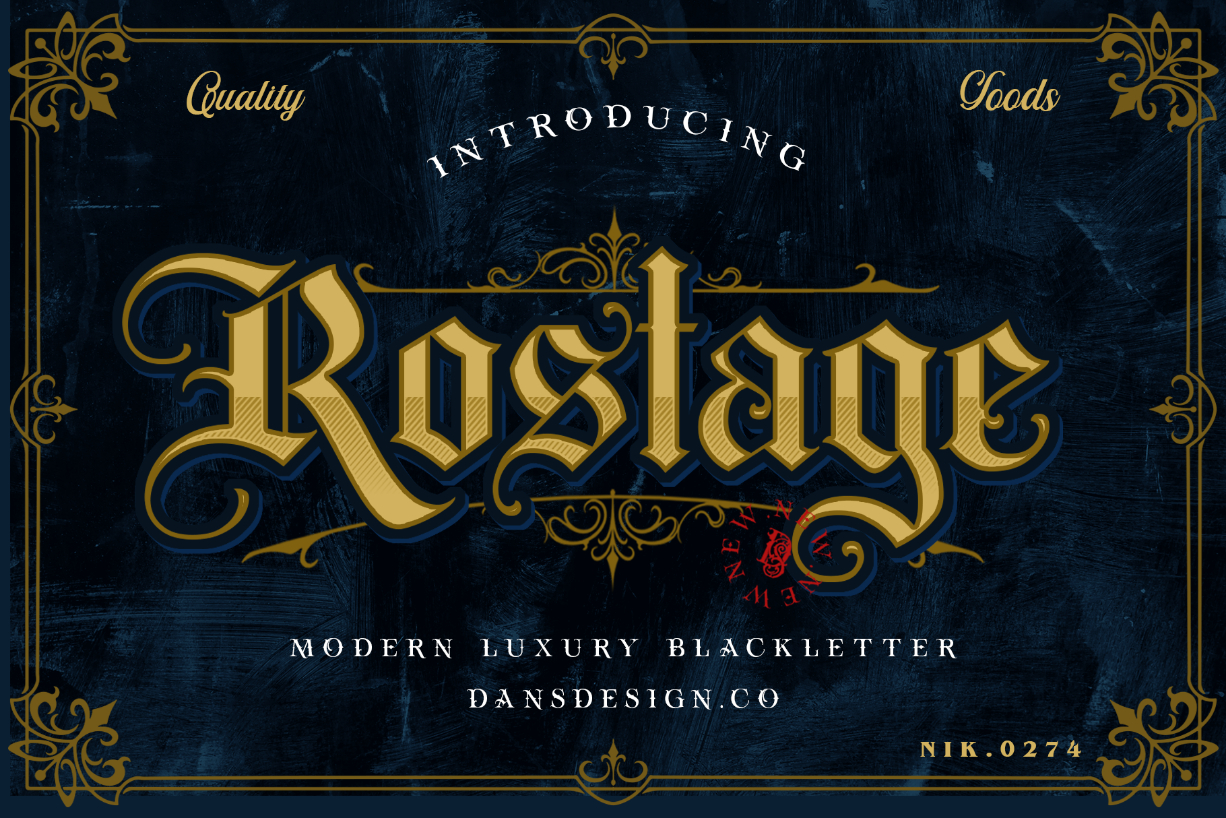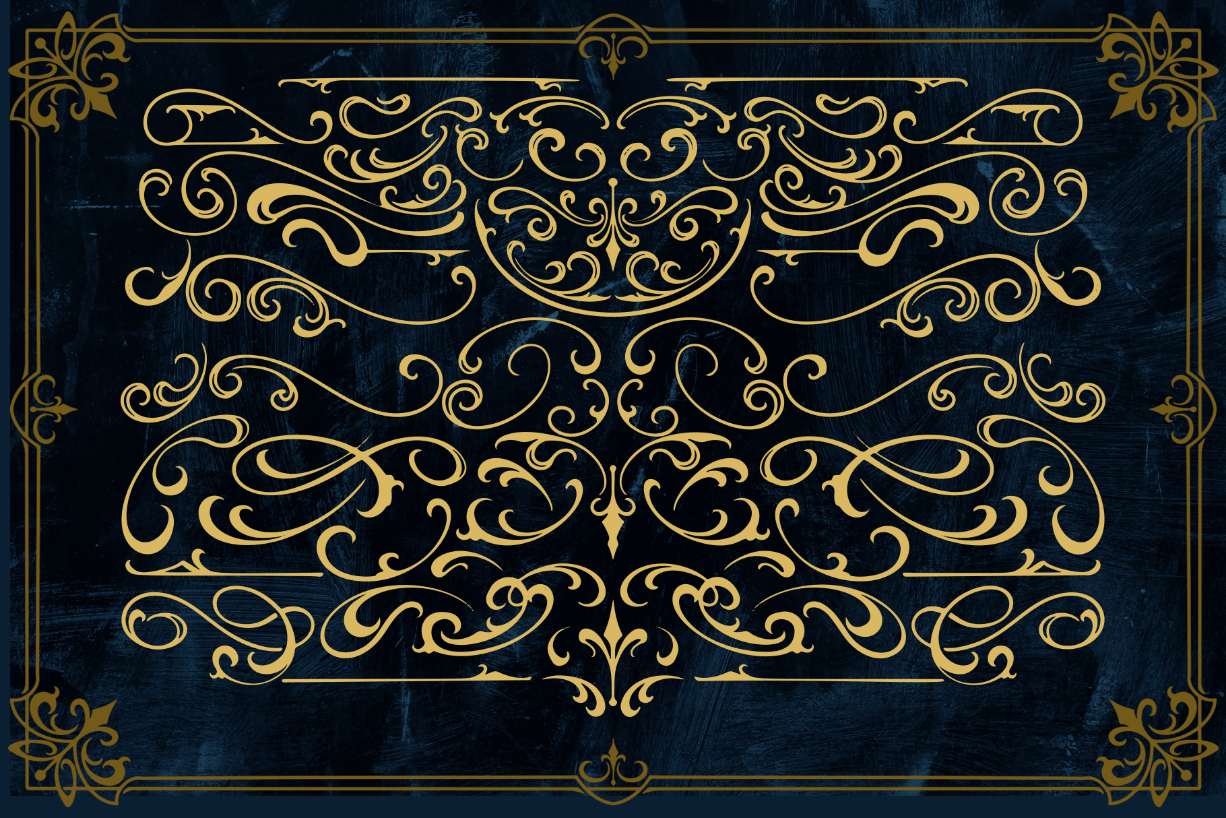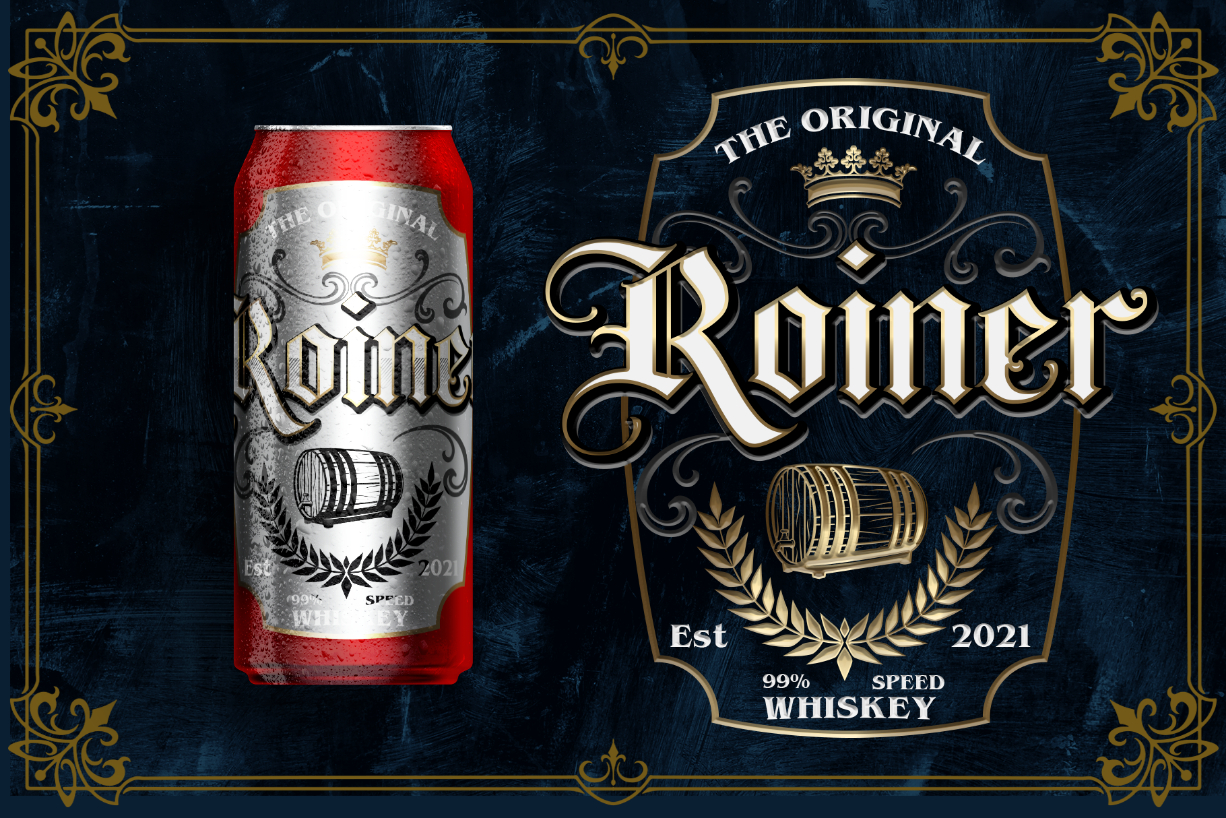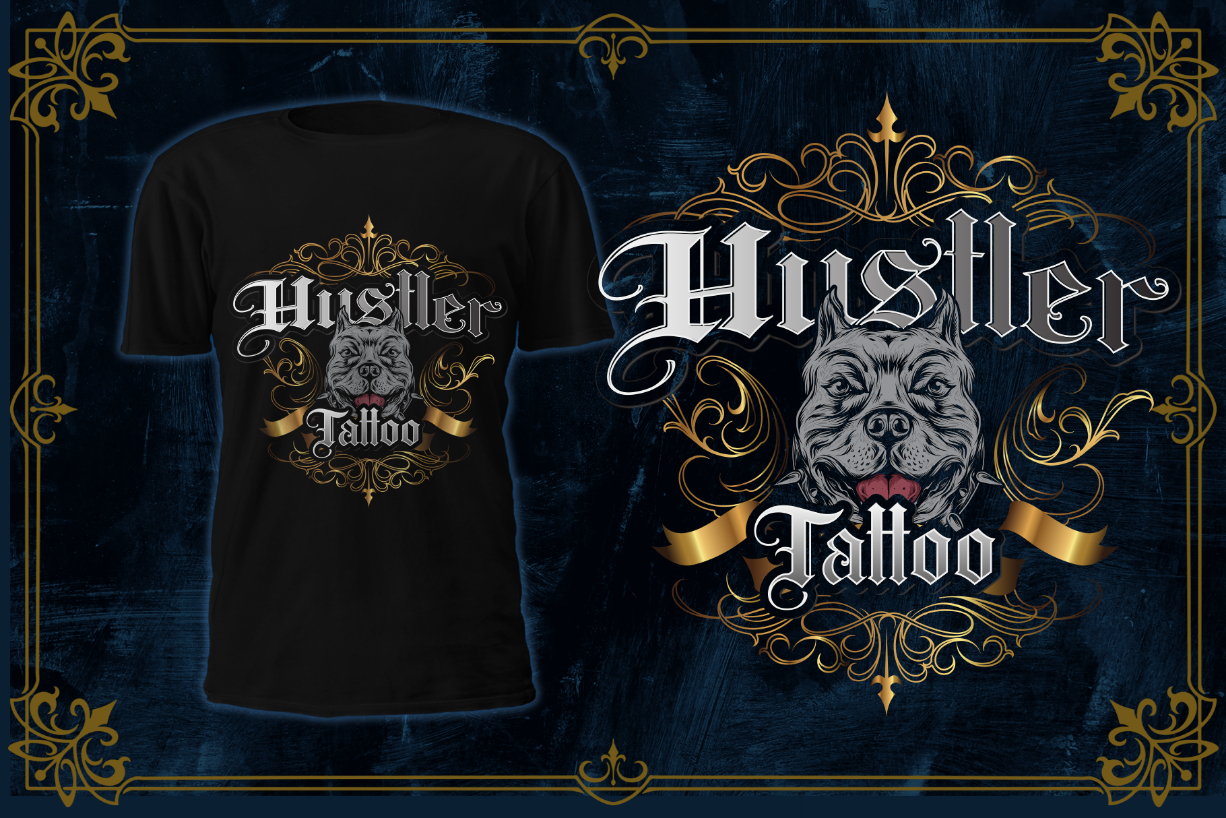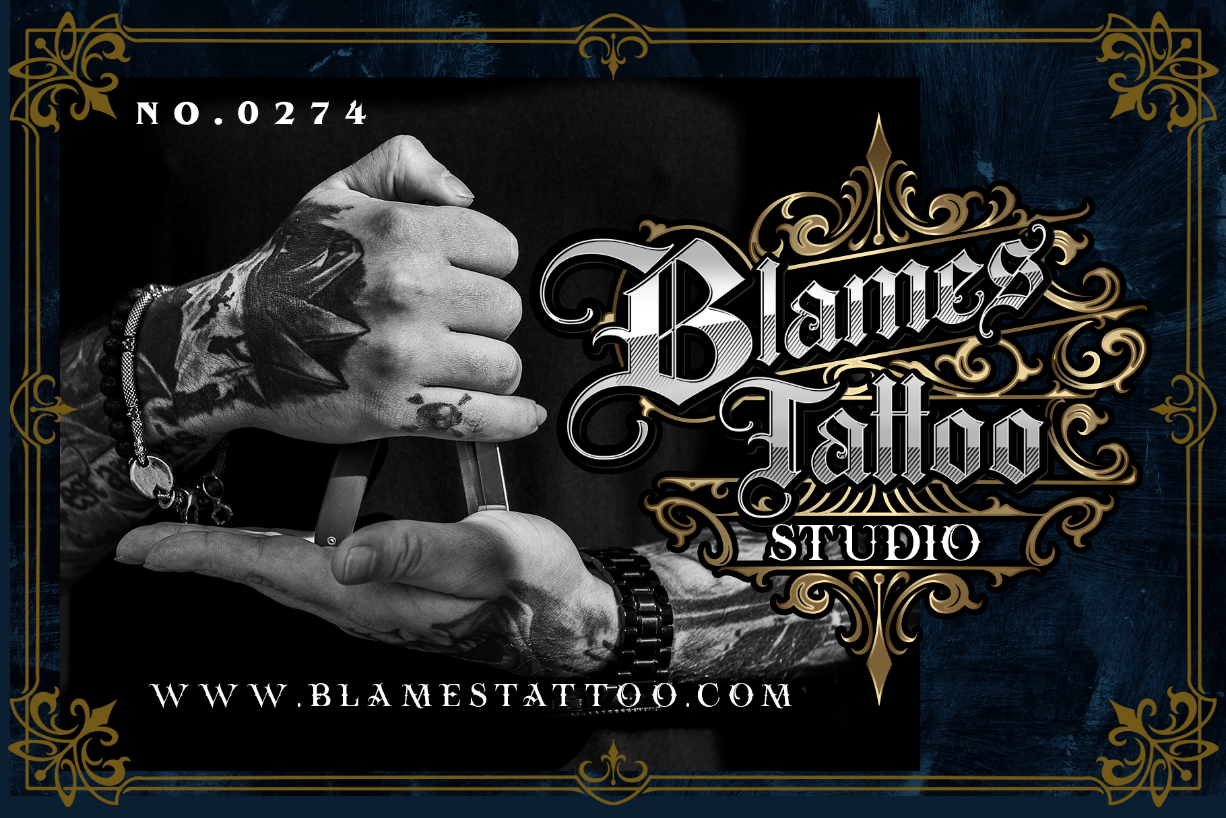
Rostage Font
About Rostage Font
Rostage is a bold and uniquely designed blackletter font. Use it for any labels, advertising, commercials and posters that require a distinct vibe.